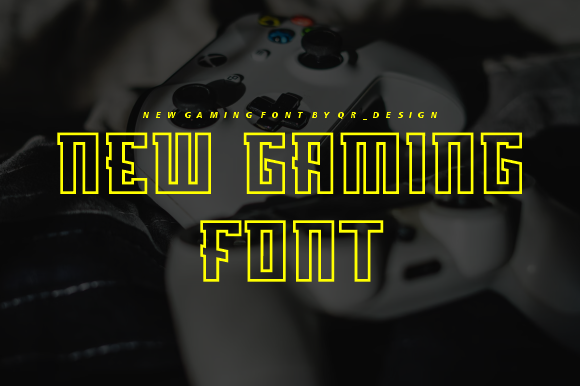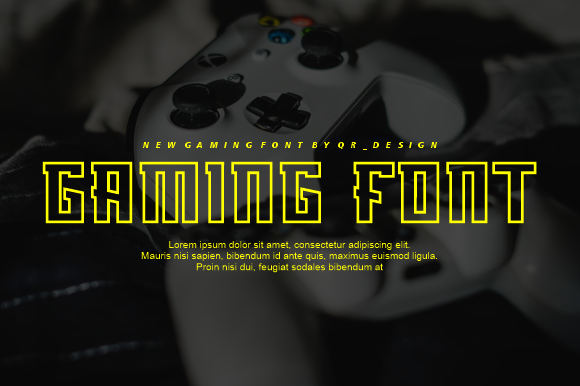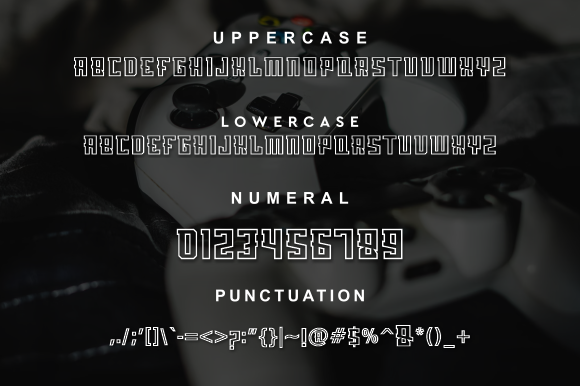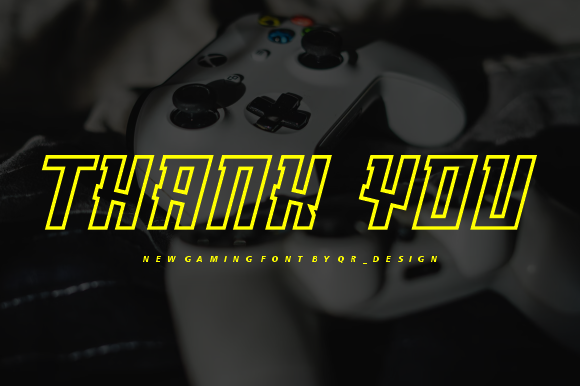
Introduction to Hard Guardian Line Font
Remember the moment when you’re brainstorming ideas for a new design project, and you stumble upon the perfect font to bring your vision to life? For designers, finding that elusive ‘aha’ moment can be a game-changer. It’s what makes all the hard work worth it – seeing your creative project come together with precision and style.
One such design resource that’s been making waves in the industry is the Hard Guardian Line Font. This bold and authentic display font is perfect for any branding project, whether it’s a logo, t-shirt printing, or even a video game title. Its versatility and high-quality design make it an invaluable asset for designers looking to elevate their work.
Key Features of Hard Guardian Line Font
- Features a unique, bold, and modern aesthetic, perfect for adding a touch of sophistication to any design.
Honest Review: Hard Guardian Line Font
As a designer, I’m always on the lookout for high-quality fonts that can elevate my creative projects. I recently had the chance to try out the Hard Guardian Line Font, and I’m excited to share my thoughts.
- Unique aesthetic**: The Hard Guardian Line Font has a distinct, bold look that’s perfect for making a statement in your designs.
- High-quality design**: The font is well-crafted and has a high level of detail, making it suitable for both digital and print projects.
Overall, I’m impressed with the Hard Guardian Line Font. While it may not be perfect, its unique aesthetic and high-quality design make it a great addition to any designer’s toolkit. If you’re looking for a bold, eye-catching font for your next creative project, I’d definitely recommend giving it a try.
To maximize the effectiveness of the Hard Guardian Line Font, use it in conjunction with other design elements, such as graphics and textures. Experiment with different font sizes and styles to create a visually appealing design.
The Hard Guardian Line Font is suitable for various creative projects, including graphic design, digital art, and web design. Its high-quality design makes it an excellent choice for presentations, posters, and other visual materials.